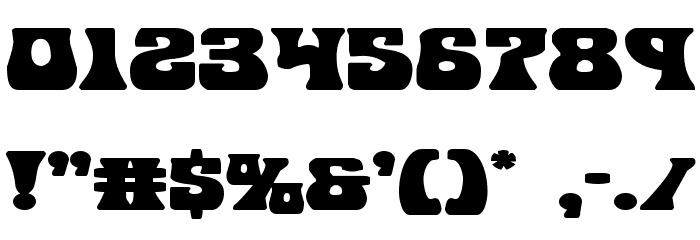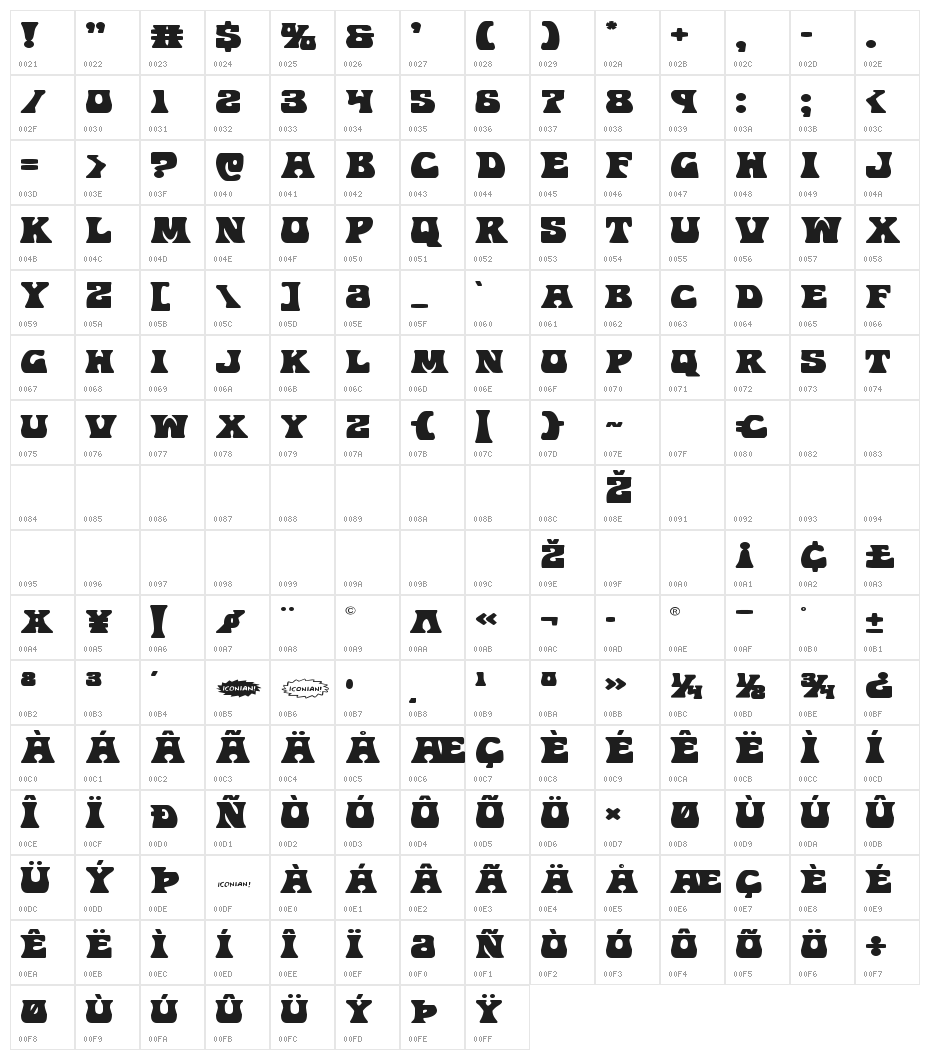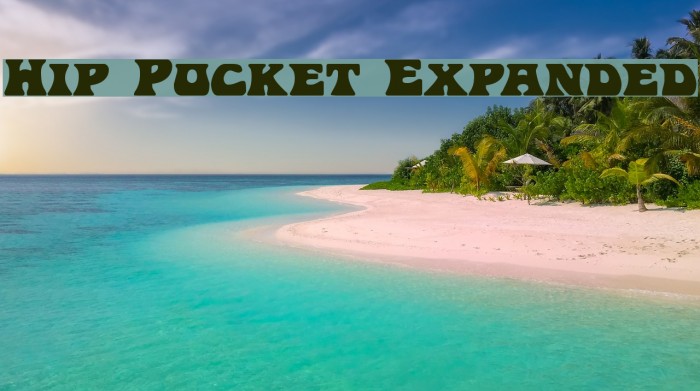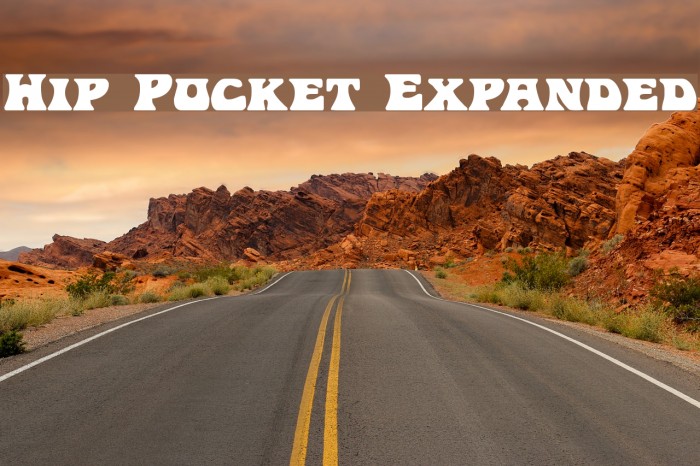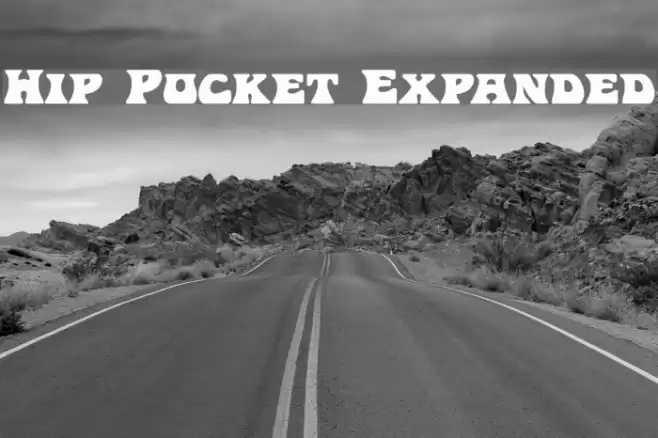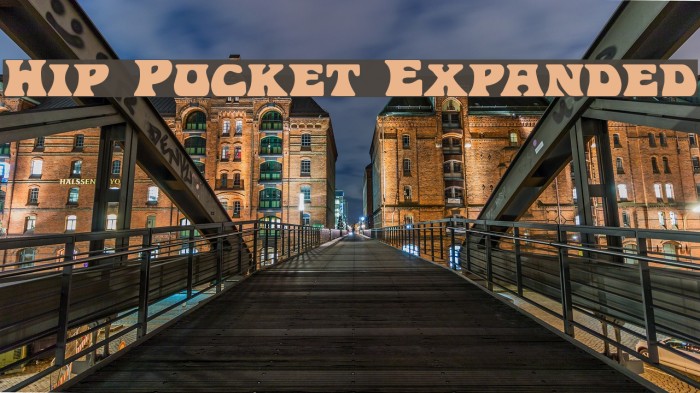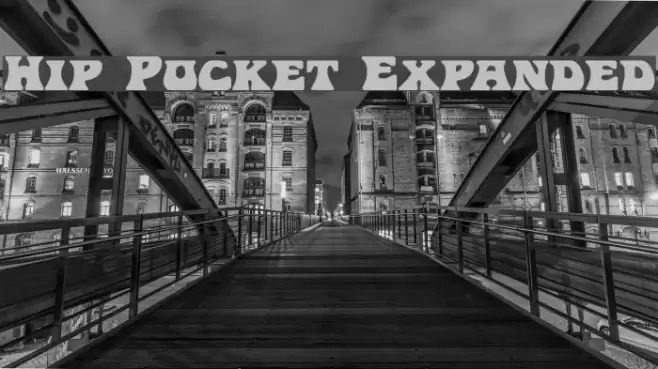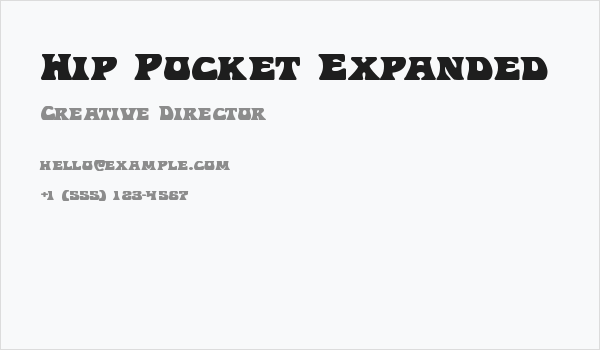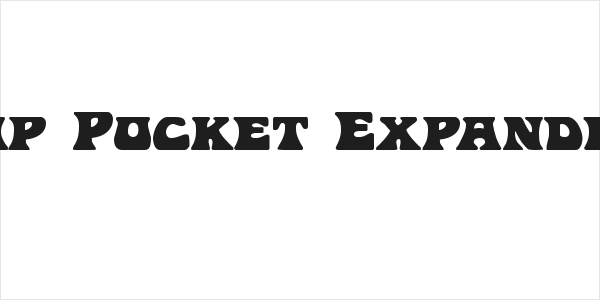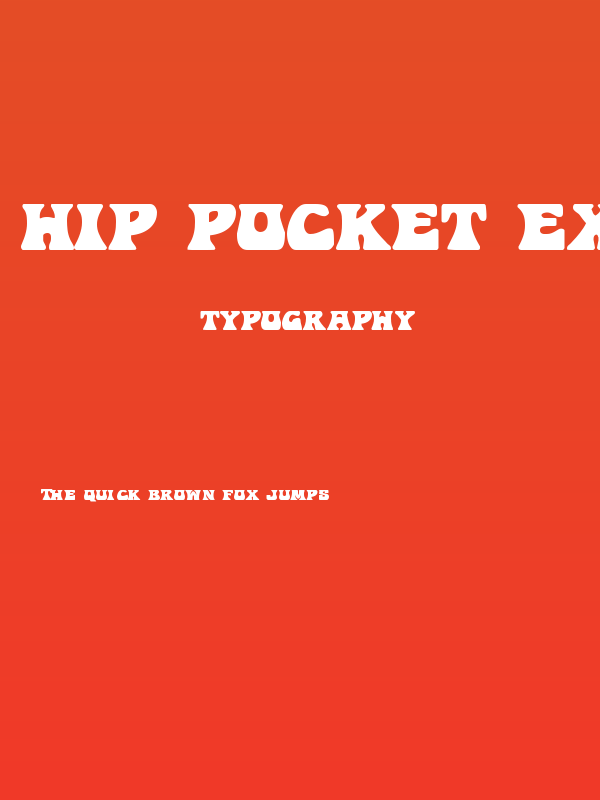
Hip Pocket Expanded Font
Hip Pocket Expanded Description
This font features a bold and playful design with exaggerated, rounded edges and a distinctively wide stance. The characters are heavily stylized, with thick strokes and a unique, almost cartoonish appearance. The uppercase letters are particularly eye-catching, with a strong presence that demands attention. The numbers and special characters maintain the same bold and whimsical style, making them perfect for creative and unconventional projects. The overall look is both fun and impactful, ideal for designs that require a touch of personality and flair.